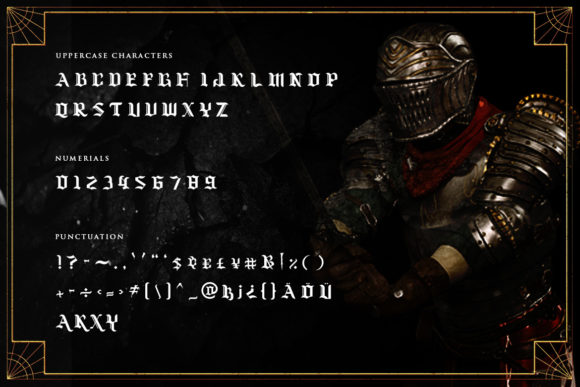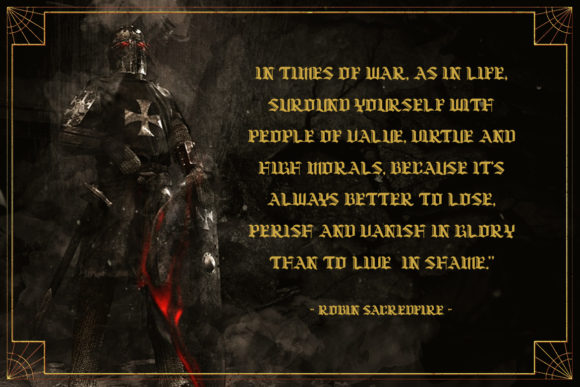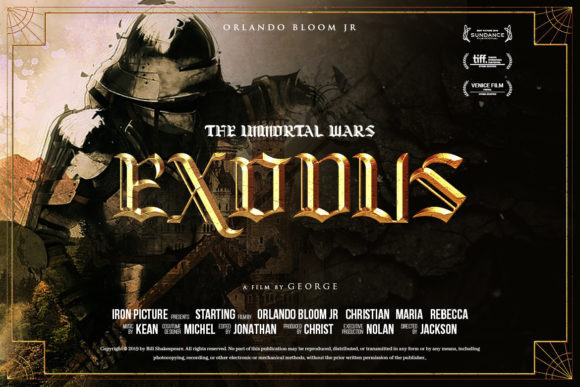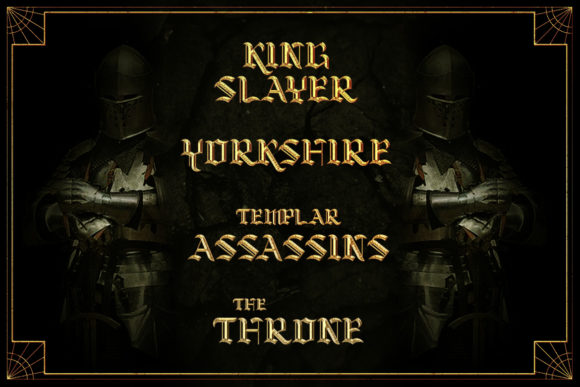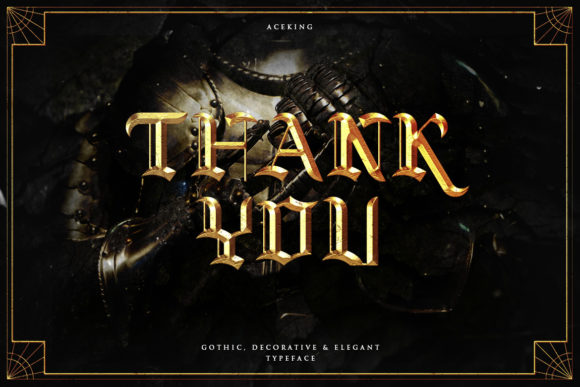
Aceking Font: The Bold and Authentic Blackletter Font for Creative Masterpieces
In the world of typography, fonts play a crucial role in bringing creative ideas to life. For designers, crafters, and artists, selecting the right font can make all the difference in conveying a message, evoking emotions, and capturing attention. If you’re on the hunt for a font that exudes boldness, authenticity, and a touch of vintage flair, look no further than Aceking Font. In this article, we’ll dive into the world of Aceking, exploring its unique characteristics, uses, and benefits for creative projects.
What is Aceking Font?
Aceking Font is a bold and authentic blackletter font designed to add a touch of rugged elegance to your creative projects. Blackletter fonts, also known as Gothic scripts, have a rich history dating back to the Middle Ages. Characterized by their dramatic, cursive-like strokes and intricate details, blackletter fonts are perfect for creating eye-catching headlines, titles, and logos. Aceking Font takes this classic style and infuses it with a modern twist, making it an excellent choice for designers and crafters seeking a unique and versatile font.
Key Features of Aceking Font
Aceking Font boasts several key features that make it an exceptional addition to your font library:
- Bold and Authentic: Aceking Font is designed to make a statement. Its bold, blackletter-inspired strokes and authentic feel evoke a sense of nostalgia and sophistication.
- Highly Legible: Despite its bold nature, Aceking Font remains highly legible, making it perfect for use in headlines, titles, and short paragraphs.
- Versatile: Aceking Font can be used in a wide range of creative projects, from logo design and branding to packaging, posters, and digital media.
- Easily Customizable: With its clean and simple structure, Aceking Font can be easily customized to fit your project’s specific needs.
How to Use Aceking Font in Your Creative Projects
Aceking Font is an incredibly versatile font that can be used in various creative projects. Here are some ideas to get you started:
- Logo Design and Branding: Use Aceking Font to create bold, eye-catching logos and brand identities that demand attention.
- Posters and Flyers: Add a touch of vintage flair to your posters and flyers with Aceking Font, perfect for promoting events, products, or services.
- Packaging Design: Use Aceking Font to create striking packaging designs that stand out on store shelves.
- Digital Media: Incorporate Aceking Font into your digital media, such as social media graphics, blog posts, and website headers.
Benefits of Using Aceking Font
So, why choose Aceking Font for your creative projects? Here are some benefits you can expect:
- Unique and Memorable: Aceking Font helps you create unique and memorable designs that capture attention and leave a lasting impression.
- Time-Saving: With its highly legible and versatile nature, Aceking Font saves you time and effort in finding the perfect font for your project.
- Professional-Grade: Aceking Font is designed to deliver professional-grade results, making it perfect for designers, crafters, and businesses seeking high-quality typography.
In conclusion, Aceking Font is a bold and authentic blackletter font that can elevate your creative projects to new heights. With its unique characteristics, versatility, and benefits, Aceking Font is an excellent addition to any designer’s or crafter’s font library. So, why wait? Add Aceking Font to your creative arsenal and notice how it makes your ideas stand out!